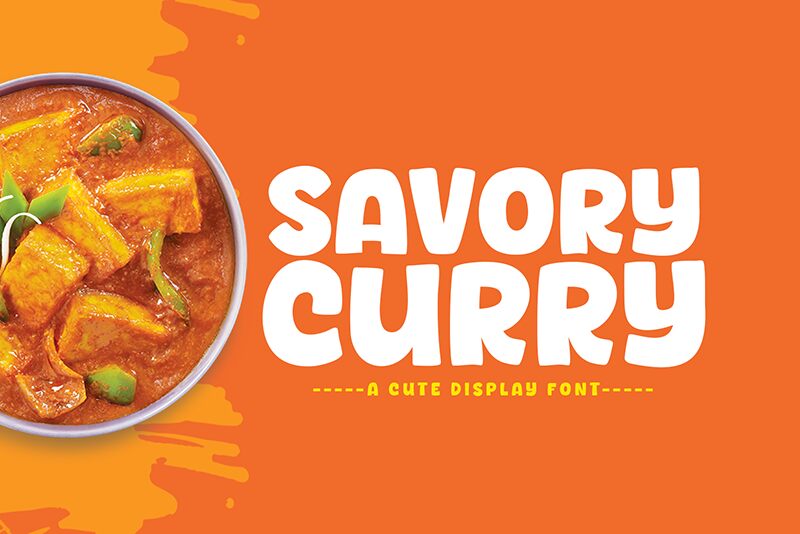
Savory Curry
Savory Curry font by Khurasan is a bold cartoon display typeface design with letters written in wavy lines and a vibrant style. Each character of Savory Curry exhibits a friendly and upbeat presence due to its chunky appearance, rounded edges, and retro inspiration. The free font embodies the fun sense of creativity served on an enjoyable savory plate.